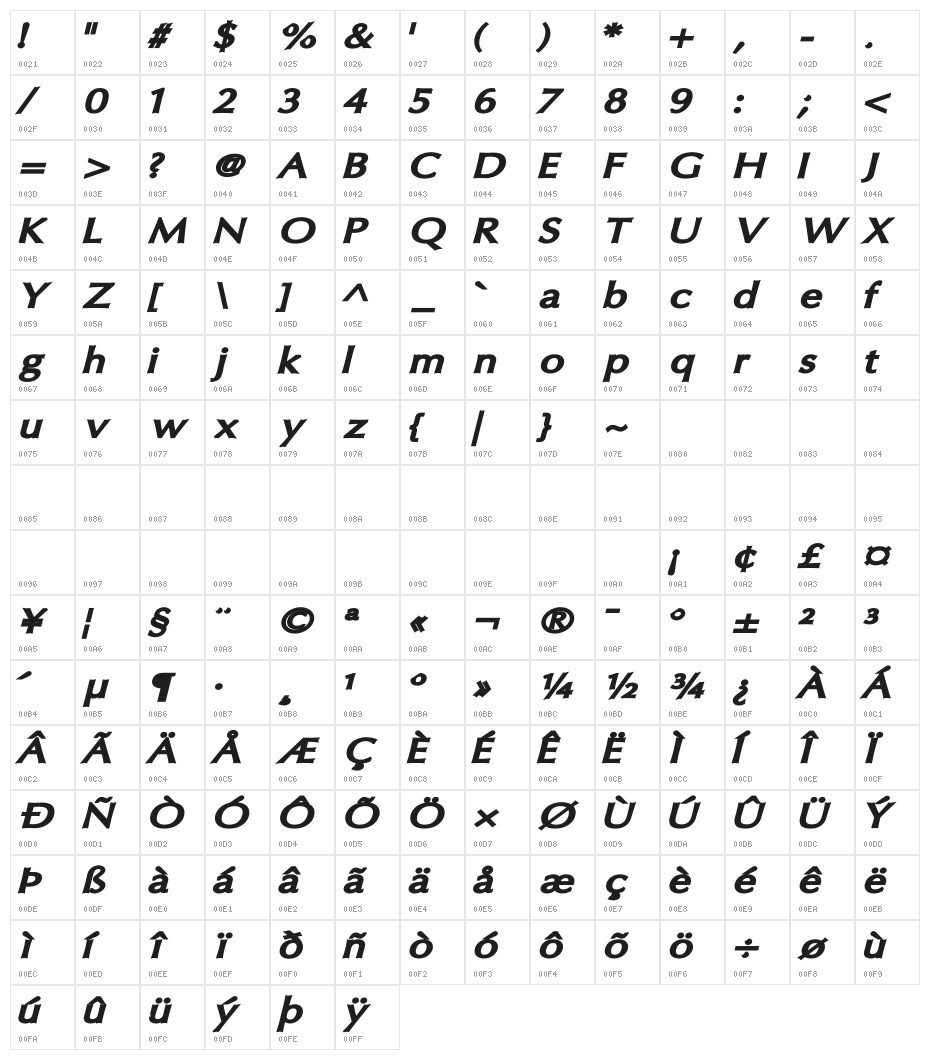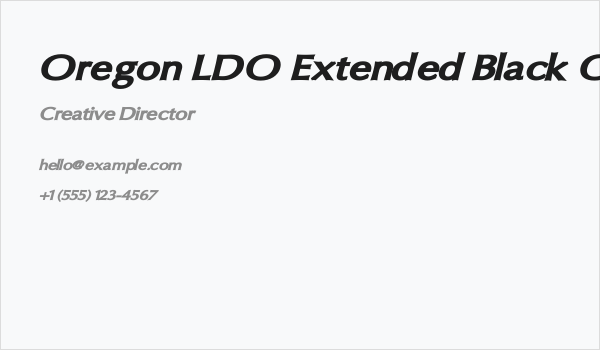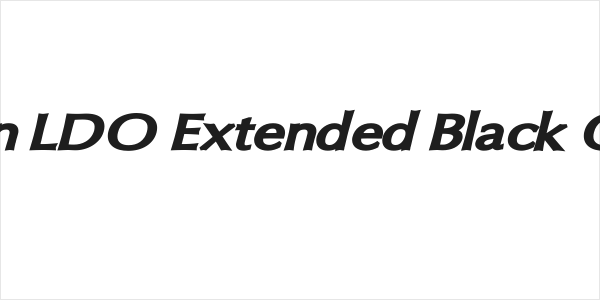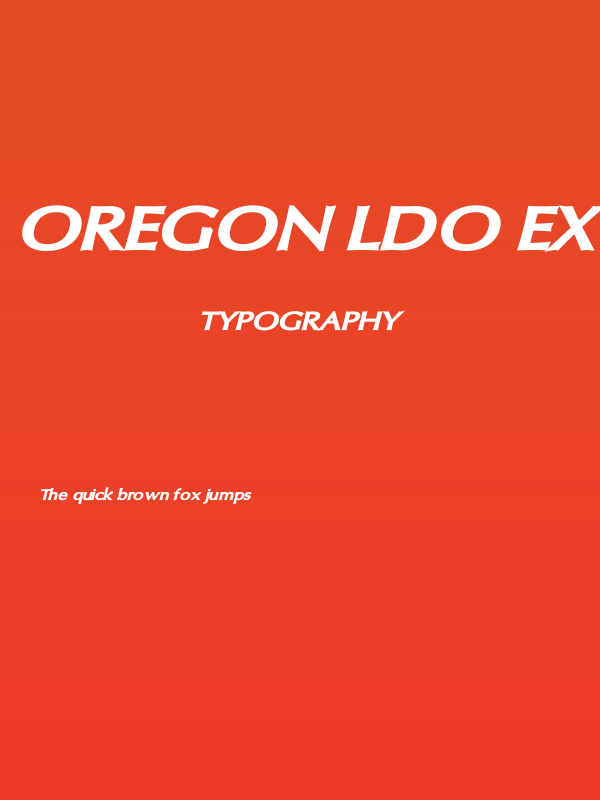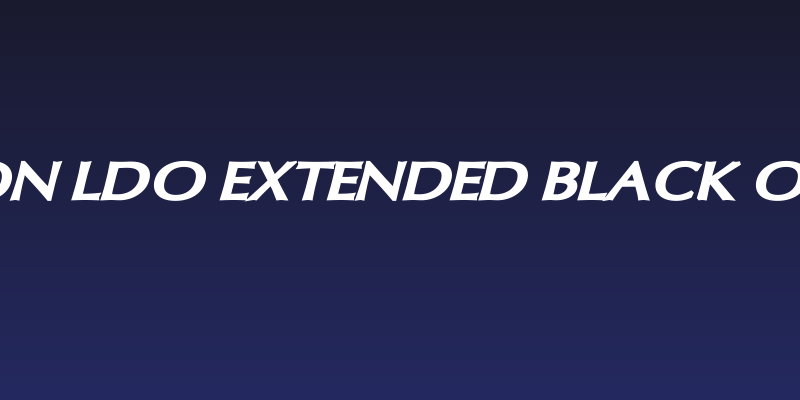
Oregon LDO Extended Black Oblique Font
Oregon LDO Extended Black Oblique Description
This font features a bold, oblique style with extended characters that give it a dynamic and modern appearance. The uppercase and lowercase letters are designed with a strong slant, adding a sense of motion and urgency. The numerals are equally bold and slanted, maintaining consistency across the character set. The special characters are well-integrated, ensuring versatility in various design contexts. The overall design is sleek and contemporary, making it suitable for projects that require a strong visual impact.
| Use Case | Headlines, Logos, Advertising |
| Proposed Projects | Ideal for branding, advertising, headlines, and any project needing a bold and modern typeface. |